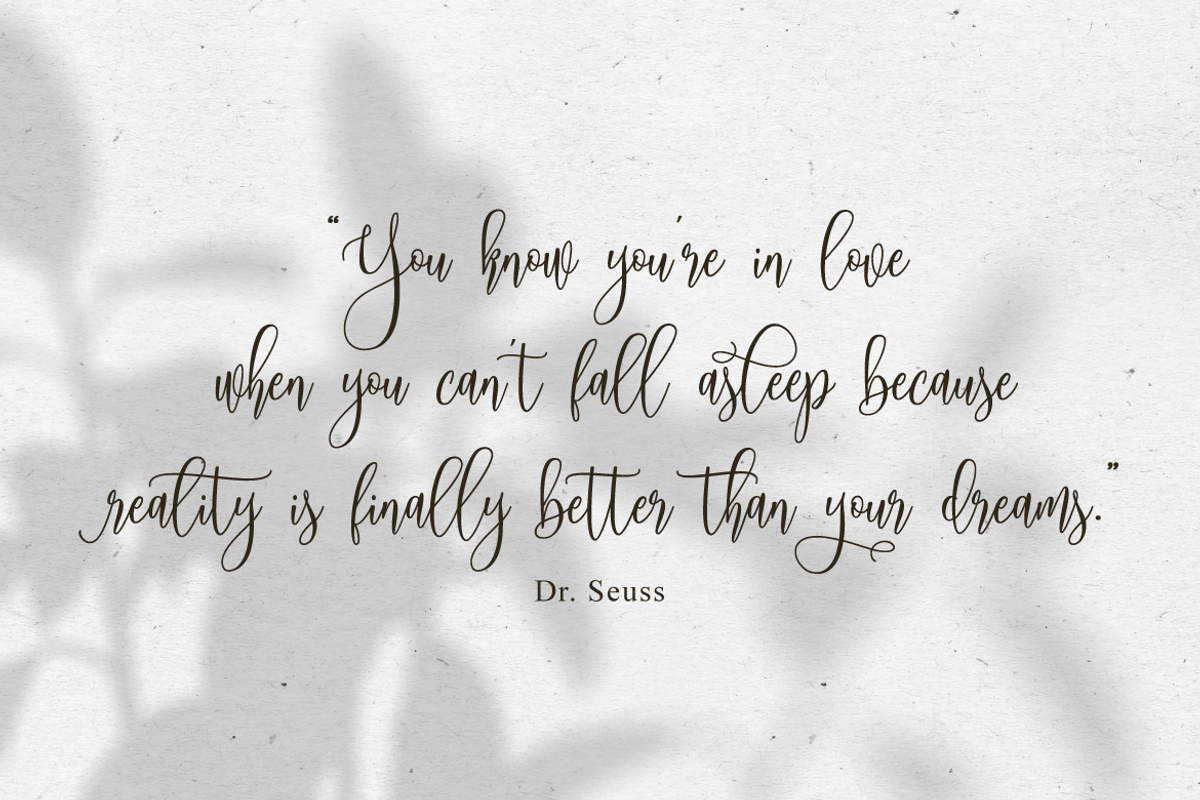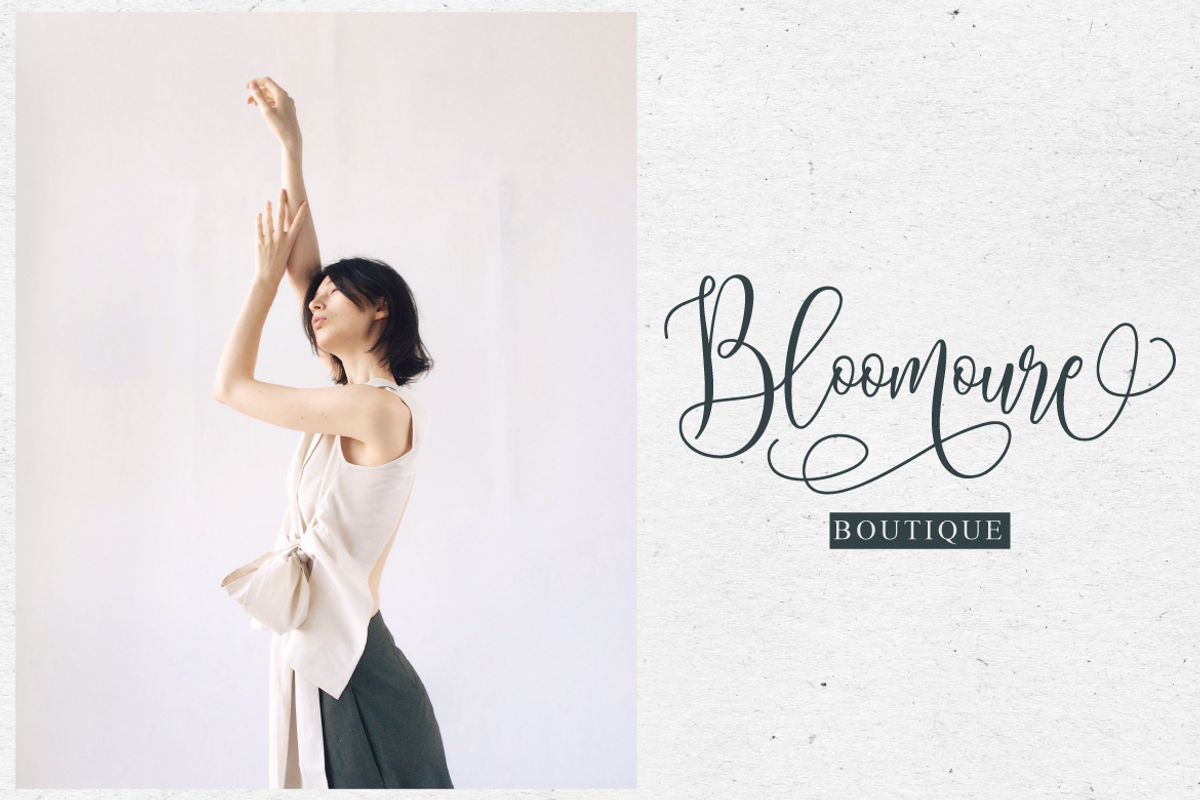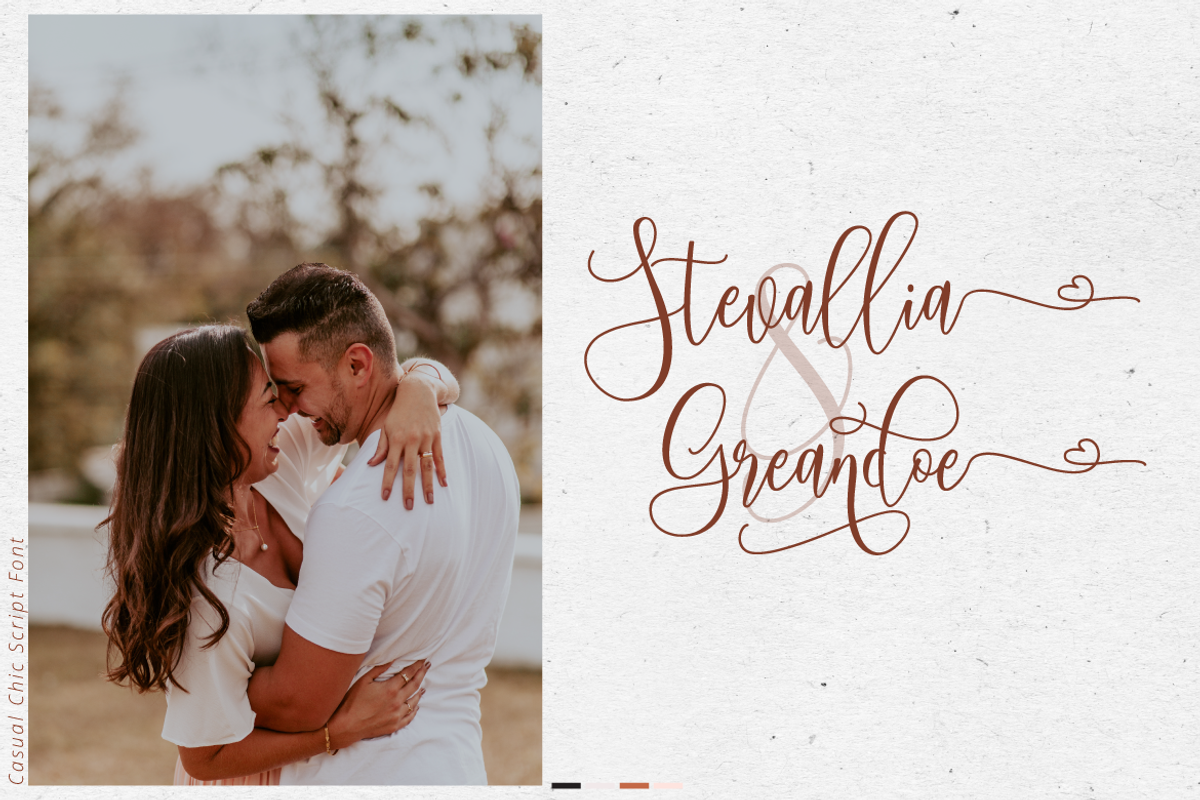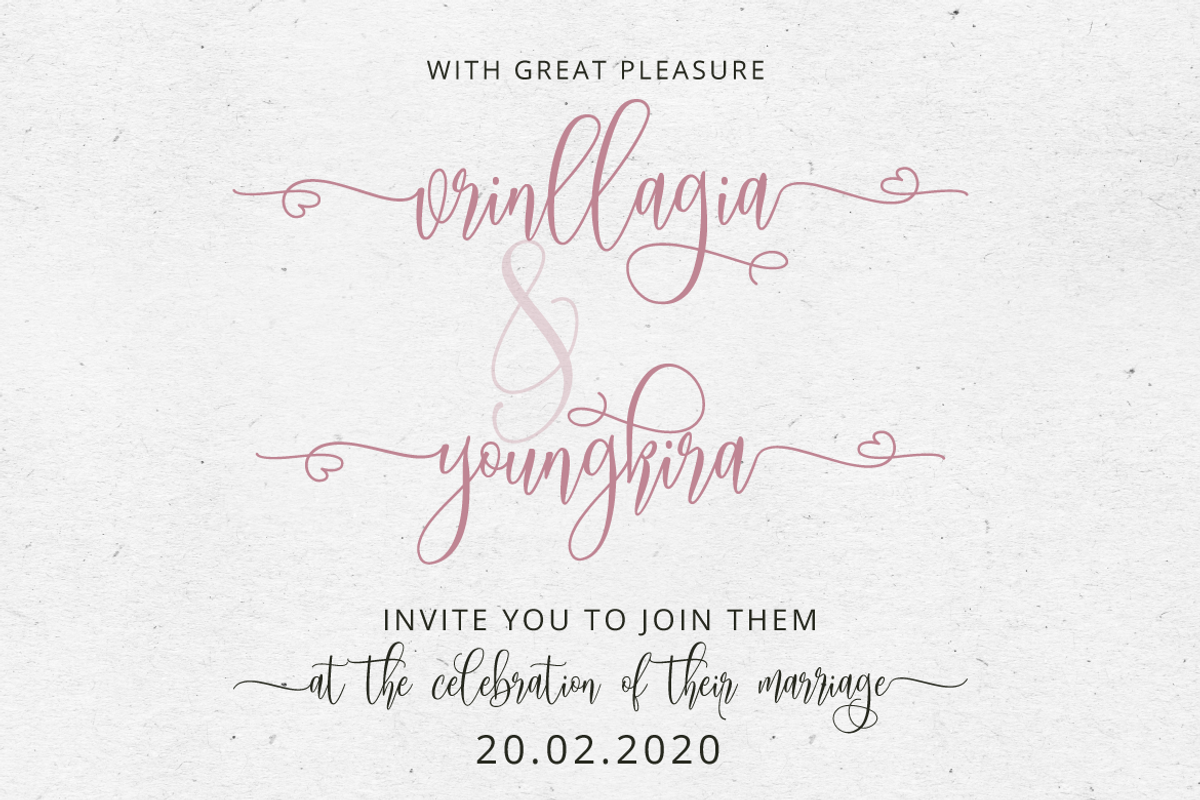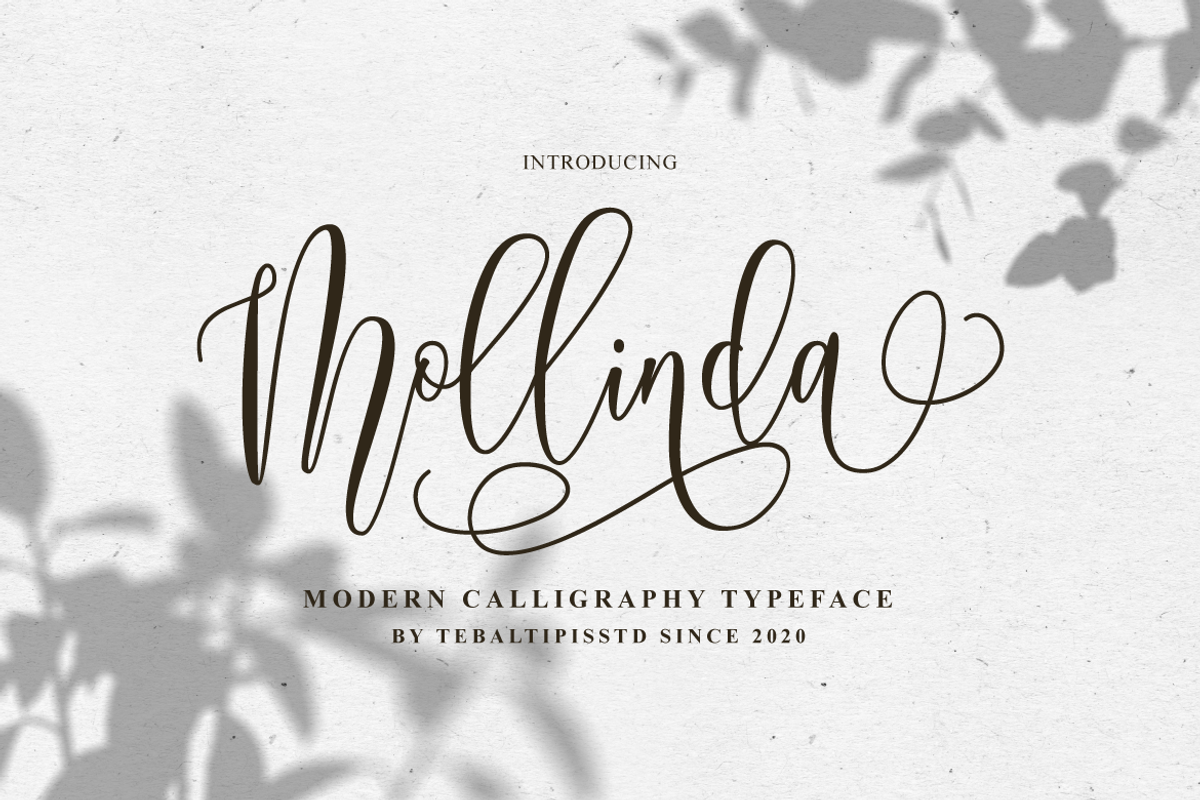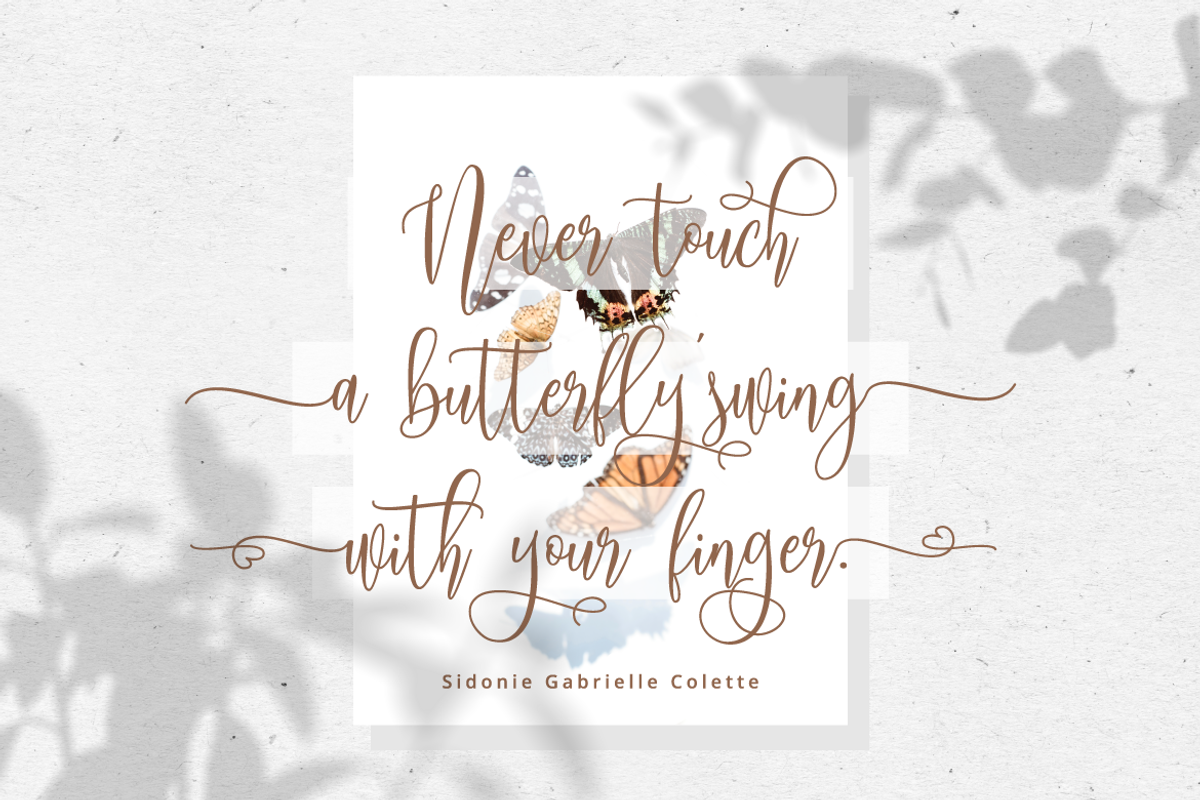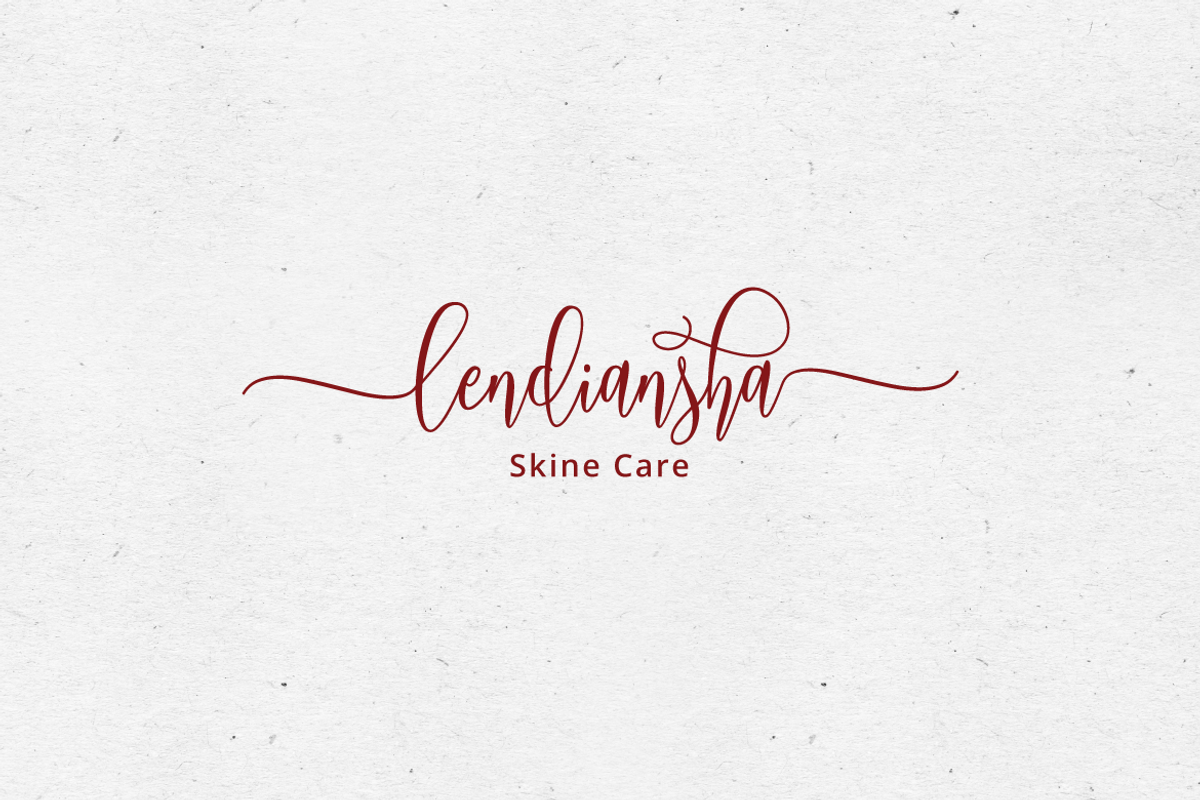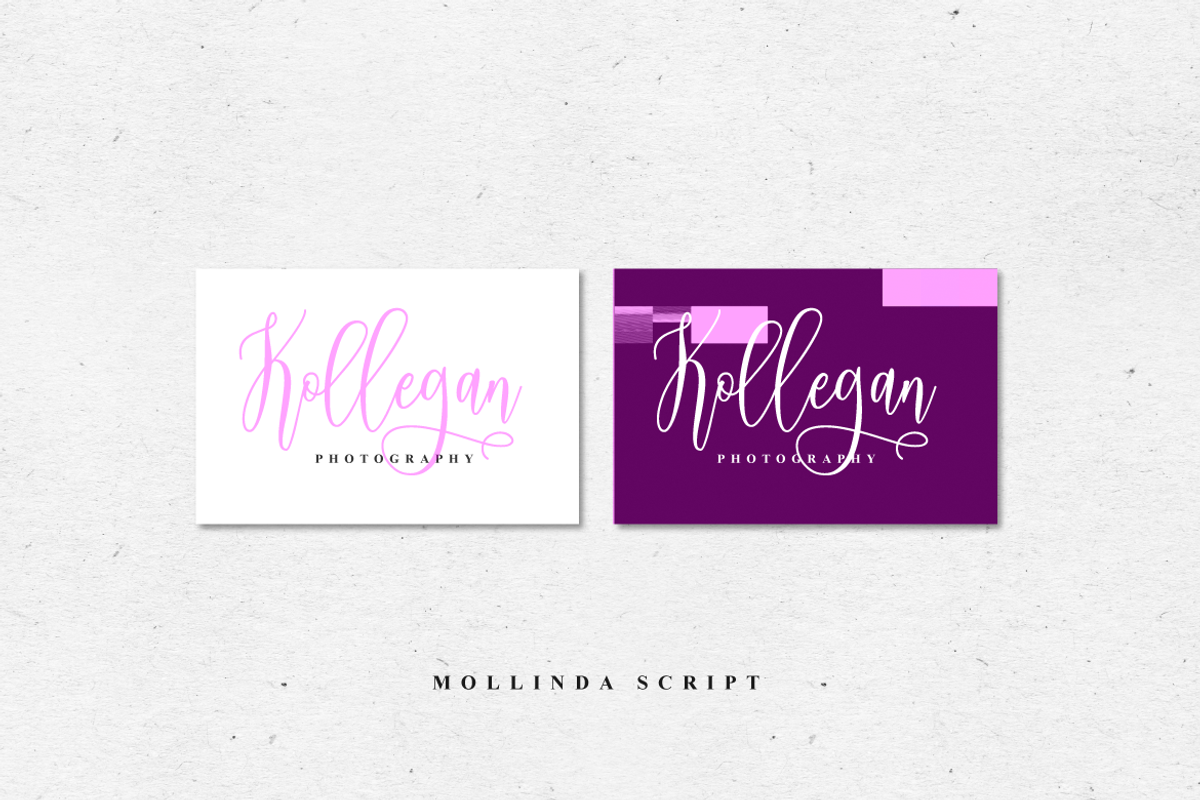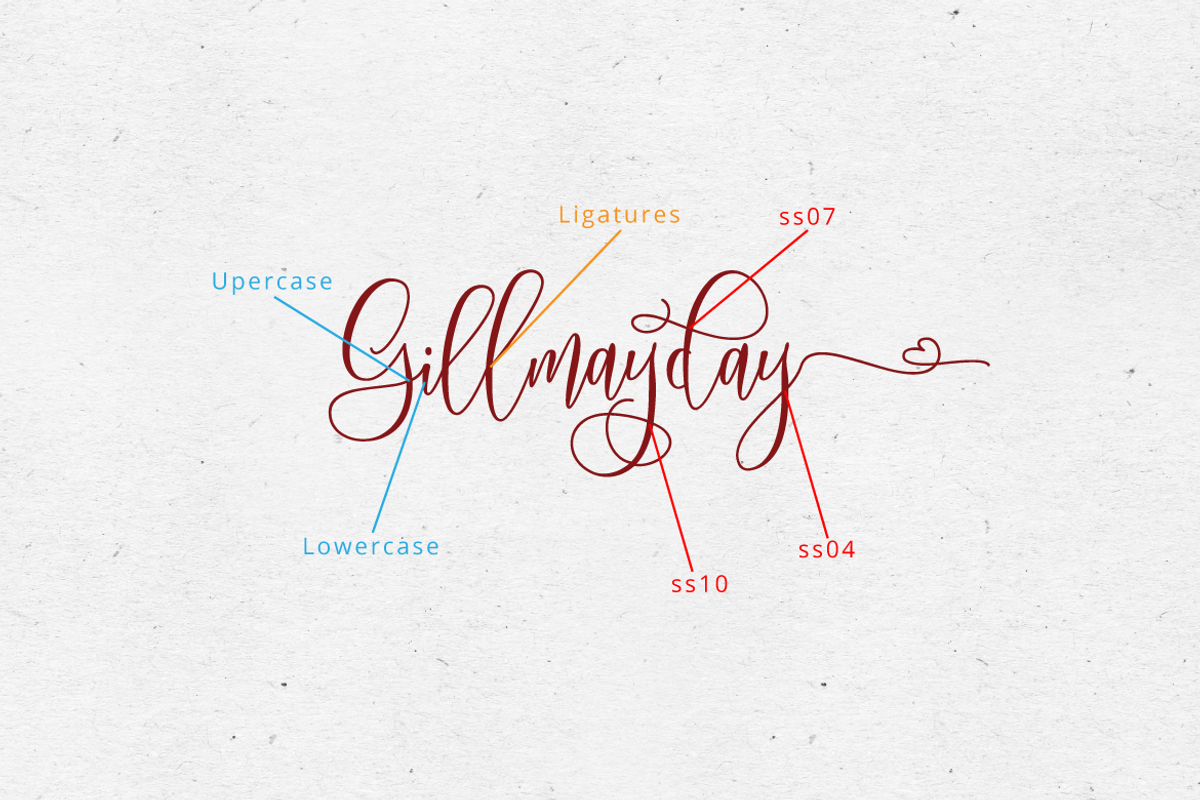
Mollinda - Modern Script Typeface
Introducing my new font Mollinda Script is a unique blend of classic and modern font. imperfect style ups and downs, like a dance letters, smooth, clean and simple. Perfect for wedding, event, invitation, escort card, table number, header menus, display, logos, slider blog, custom address, stamps, packaging, greeting card, etc.
Mollinda Script including alternate glyph and beautiful swirl in a font including stylistic sets, Ligatures etc. The Open Type features can be accessed by using Open Type savvy programs such as Adobe Illustrator CS, Adobe Indesign & CorelDraw X6-X7 and Microsoft Word. And this Font has given PUA unicode (specially coded fonts). so that all the alternate characters can easily be accessed in full by a craftsman or designer.